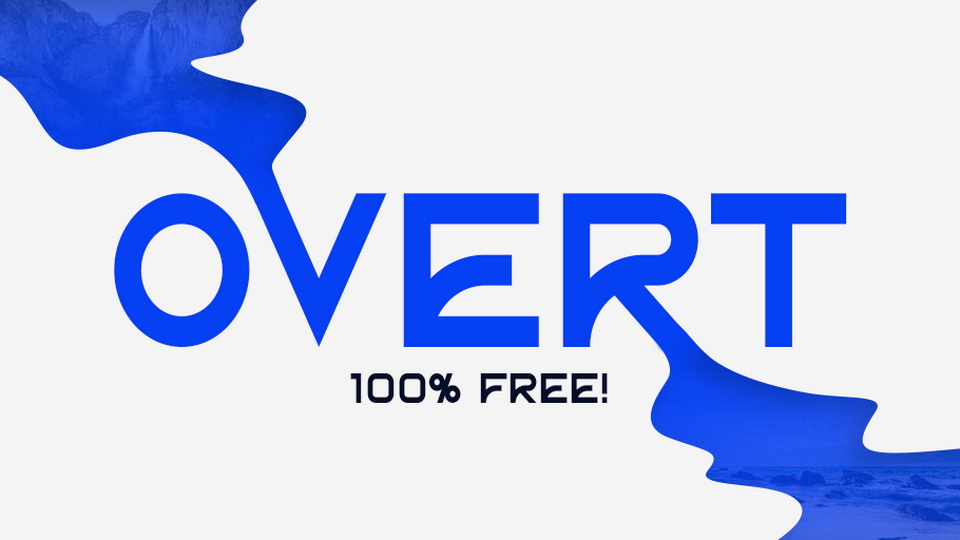
Download Overt font, a bold geometric display typeface with a unique letterforms. Overt works best for creative posters and eye-catching headlines and small text blocks.
Designer: Joseph Espinoza